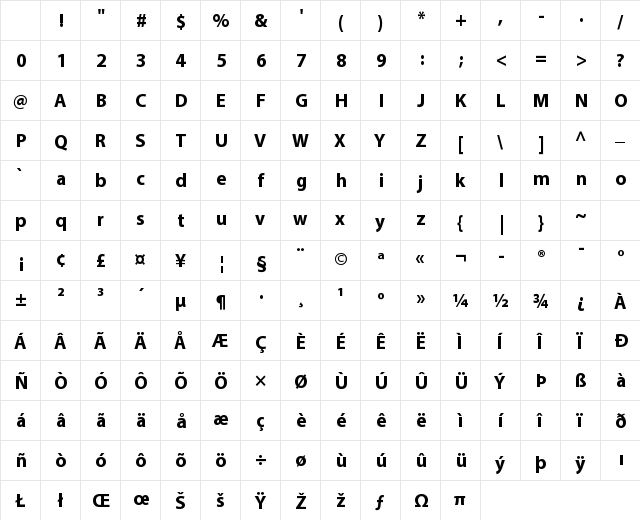
Complete Bahij Myriad Arabic Bold glyph index. Displaying only characters natively supported by Bahij Myriad Arabic Bold font.
Bahij Myriad Arabic is a composed and adaptable typeface that performs quietly and consistently across a wide range of design contexts. Its bold stroke weight gives it real presence on the page.